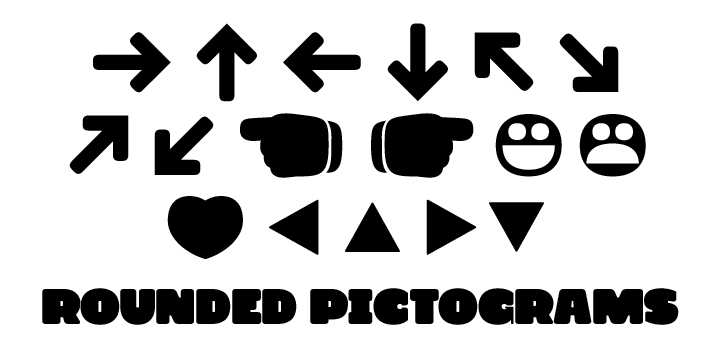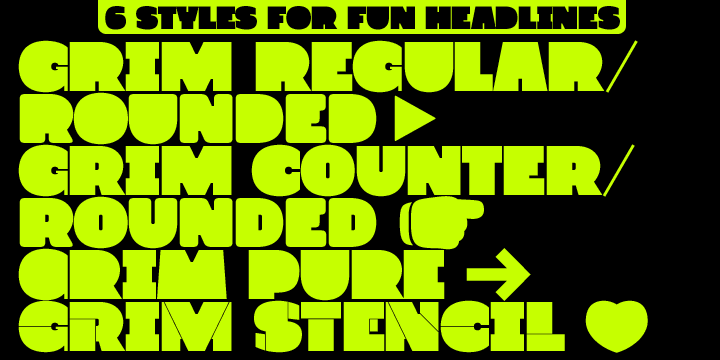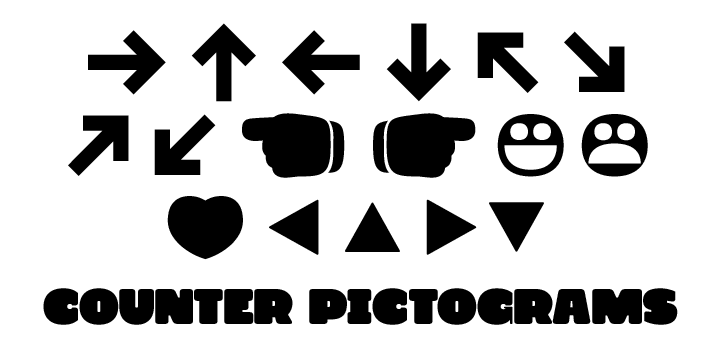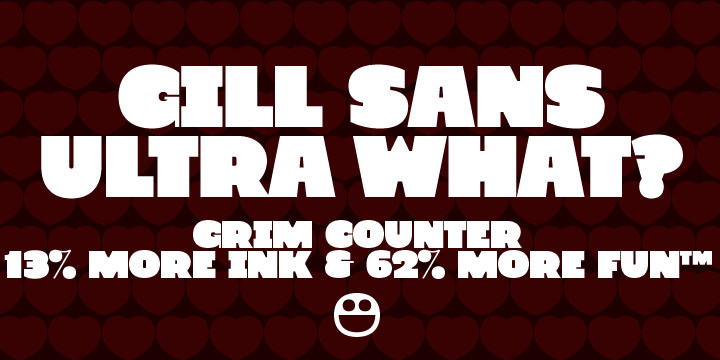
Grim Counter is a novelty font family. This typeface has two styles and was published by Rekord.
Grim is a display family with a lot of room for application, most obvious being the tightly fitted headlines with impact.
It works especially well as a counterpart to a serious, refined serif font. Each family member comes with a set of useful pictograms: arrows, triangles, hands, smilies and a heart.
It is best suited for poster and editorial usage.